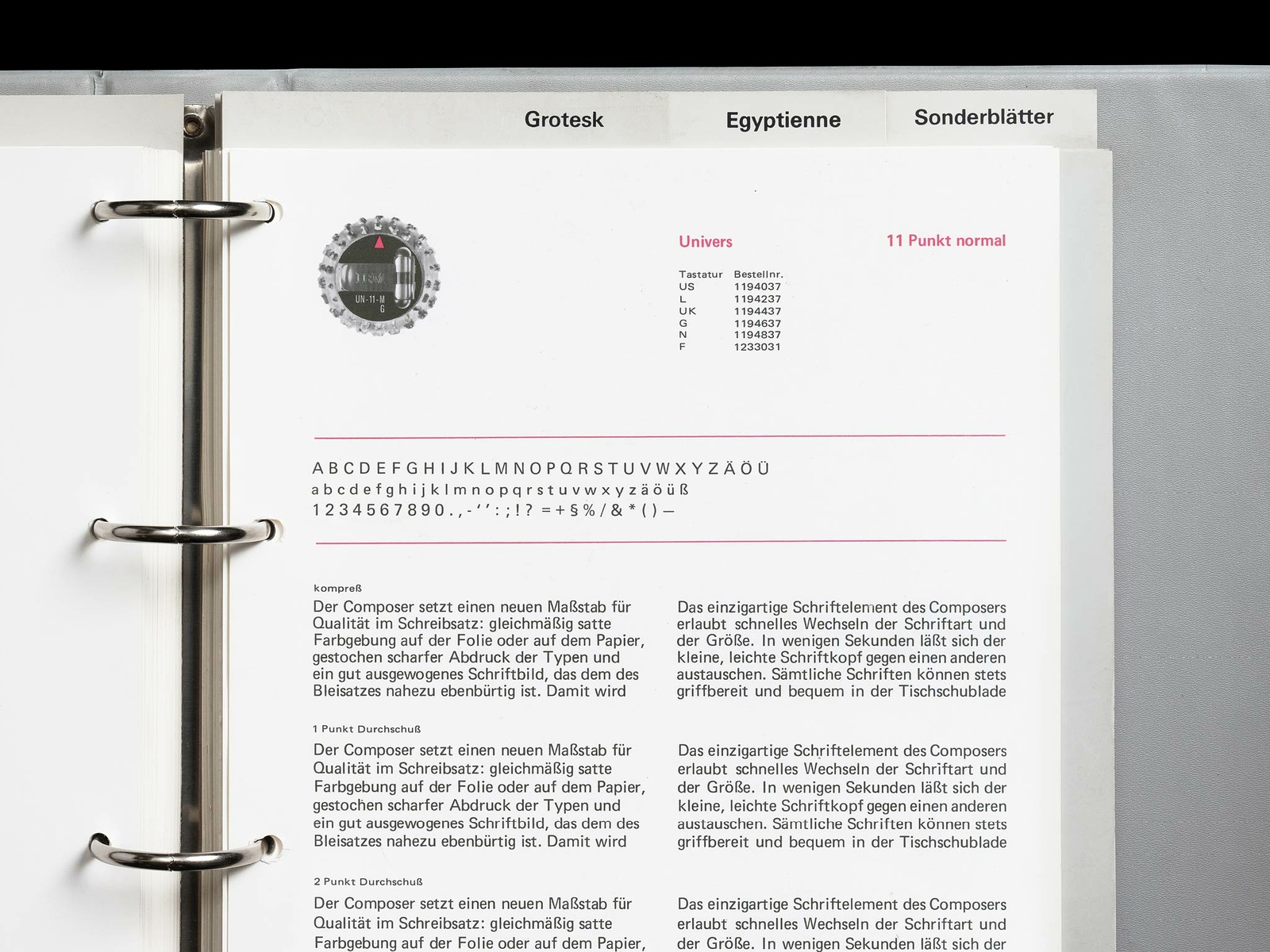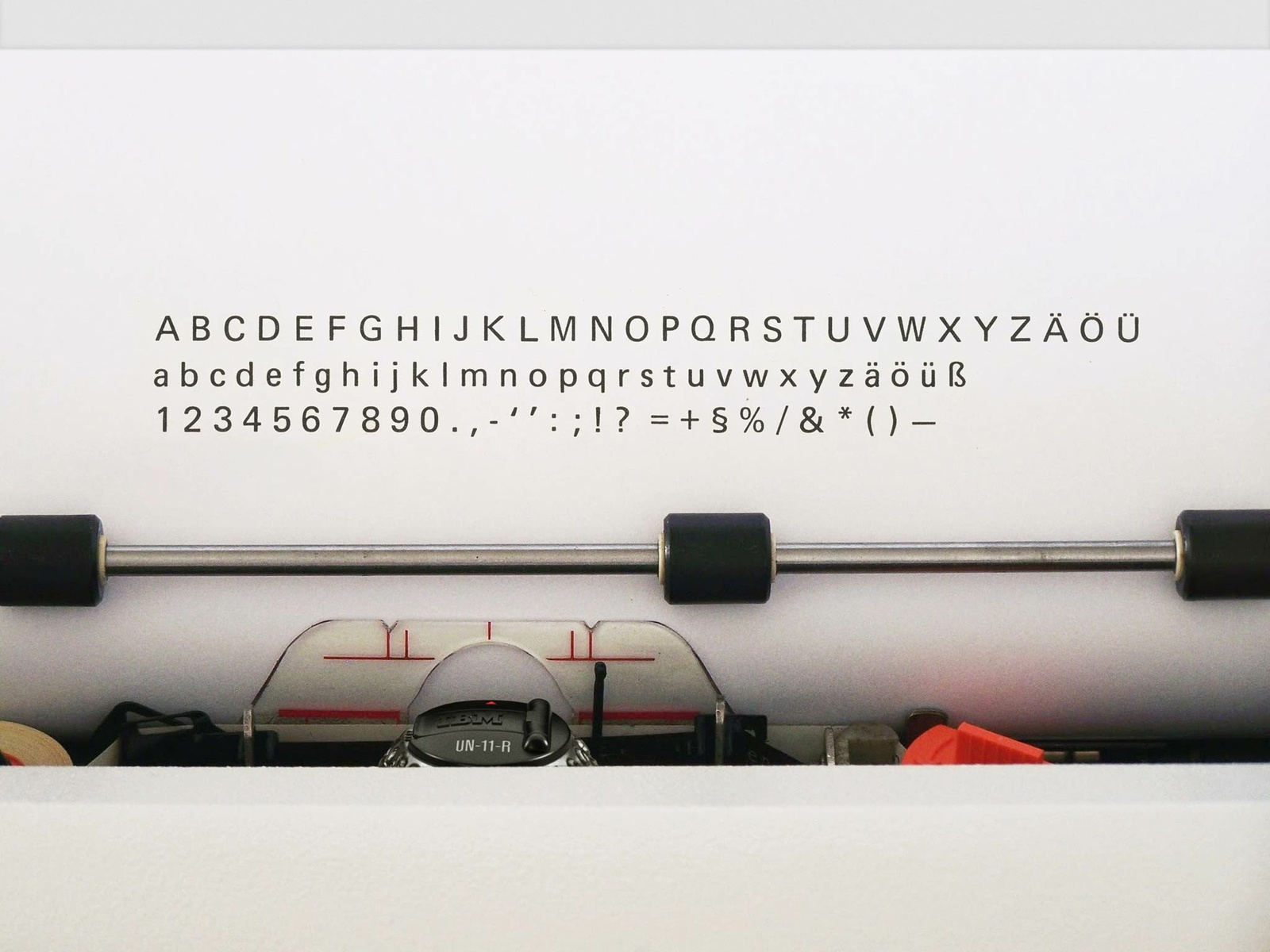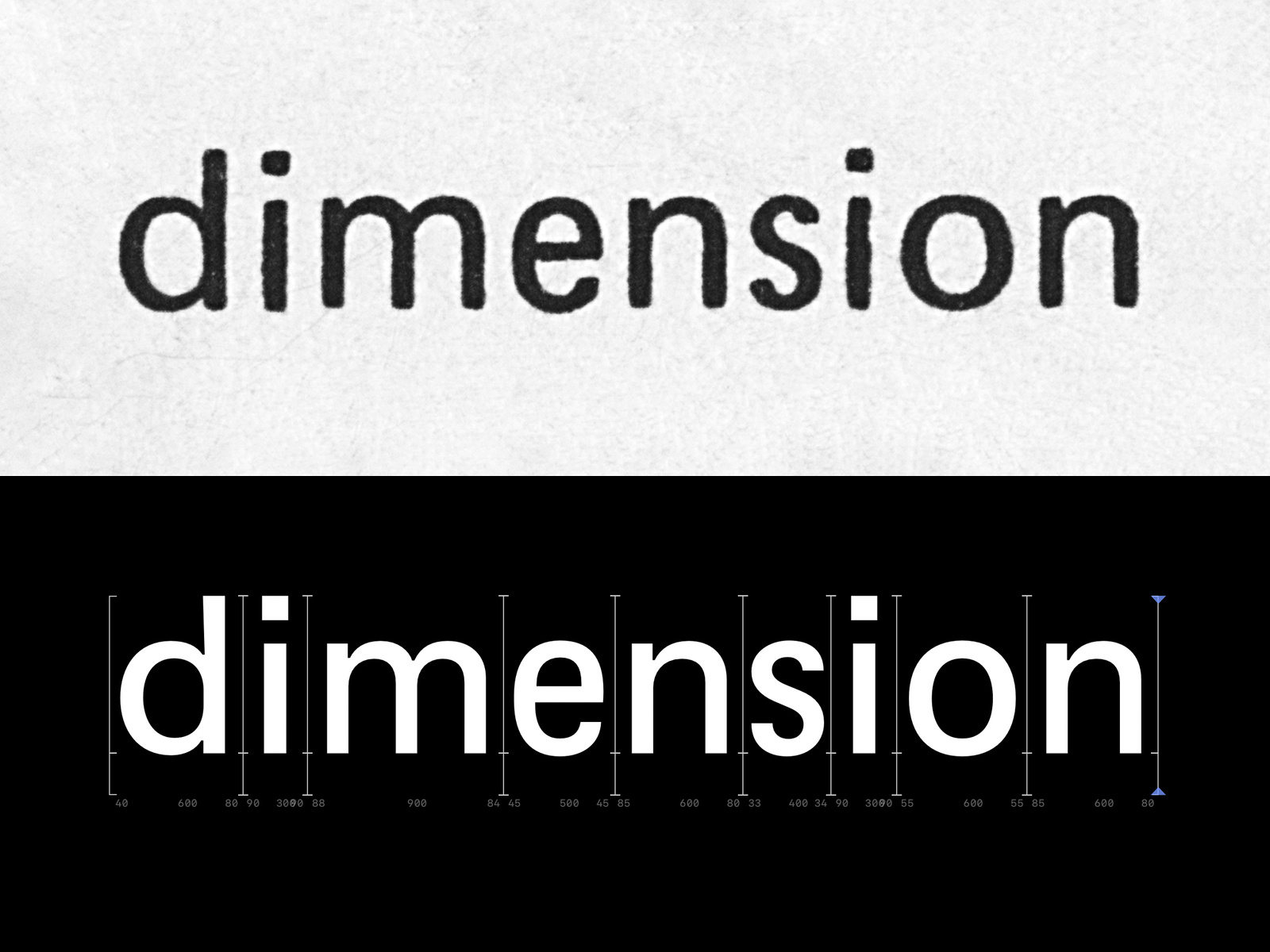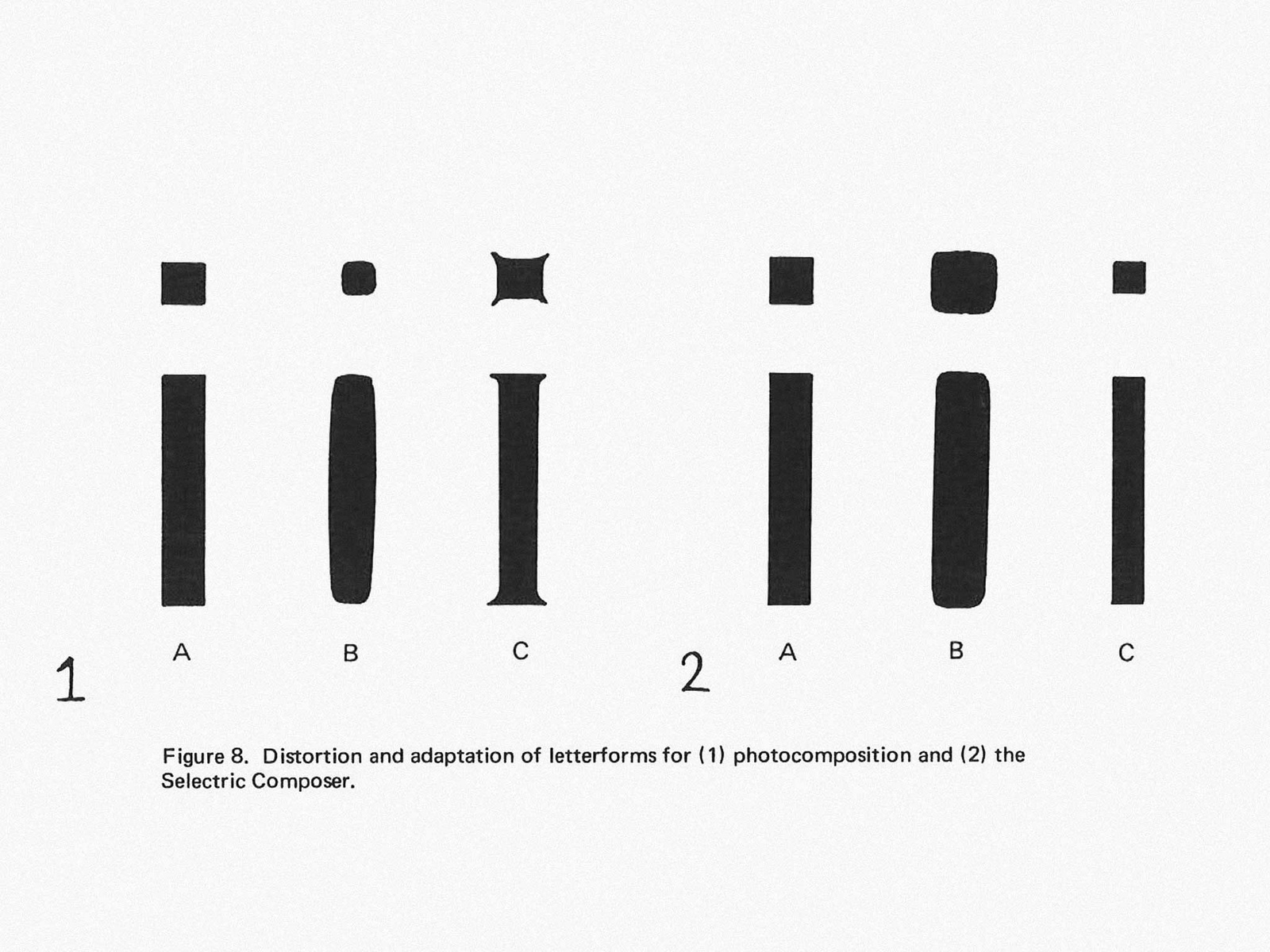
About UN-11
Introducing UN-11, a rare cut of the Swiss classic by Adrian Frutiger faithfully digitized and carefully re-engineered for today’s typographic universe.
In 1961, IBM unveiled the Selectric Typewriter, featuring a revolutionary type ‘golf ball’ that replaced the traditional typebar mechanism. To expand their font catalog and promote this new technology, IBM enlisted Adrian Frutiger to adapt his iconic Univers, modifying it to suit the machine’s specific constraints and metrics. The result was an alternate version of Univers with unit-based spacing, marking an exciting and distinct departure from conventional monospaced type. To Frutiger, the font’s charmingly uneven rhythm uniquely combined mechanical precision with a human touch.
Today, UN-11’s idiosyncrasies stand out in a world of polished interfaces, rounded corners, and total easing. Throughout history, versions of Univers have been adapted for various typesetting technologies, from letterpress to phototype to PostScript, but none with quite the same unique flair as this. UN-11 is finally available, finely tuned for contemporary print and screen environments.
ST UN-11 is designed by Laurenz Brunner and was released by Source Type in 2024.
Source Material
UN-11-R type “golf ball” for the IBM Selectric Typewriter (1961). This revolutionary technology introduced a unit-based spacing system between characters and enabled users to easily change typefaces.
IBM Selectric type specimen binder (1967)
Univers specimen for the Selectric typewriter (1967)
Typewritten page of IBM’s modified Univers (1961)
Digitization of UN-11 from high-res scan to vector drawing
Illustration by Adrian Frutiger from Typography and the IBM Selectric (1967), demonstrating letterform modifications to compensate for printing distortions
Various illustrations by Adrian Frutiger from Typography and the IBM Selectric (1967)
Diagram of typewriter parts from the IBM Selectric manual (1971)
Instructions for changing the “golf ball” on an IBM Selectric typewriter (c. 1961)
IBM Selectric advertisement highlighting its new “golf ball” technology (c. 1961)
Exploded view diagram of an IBM Selectric typewriter